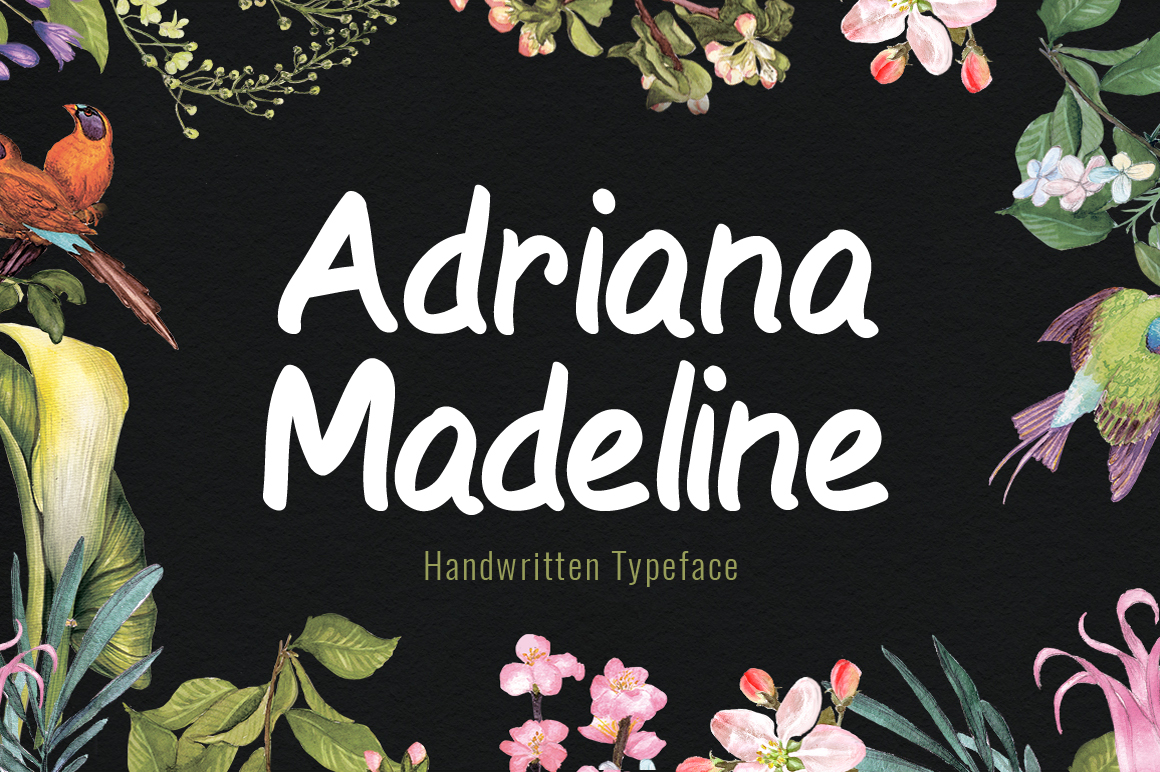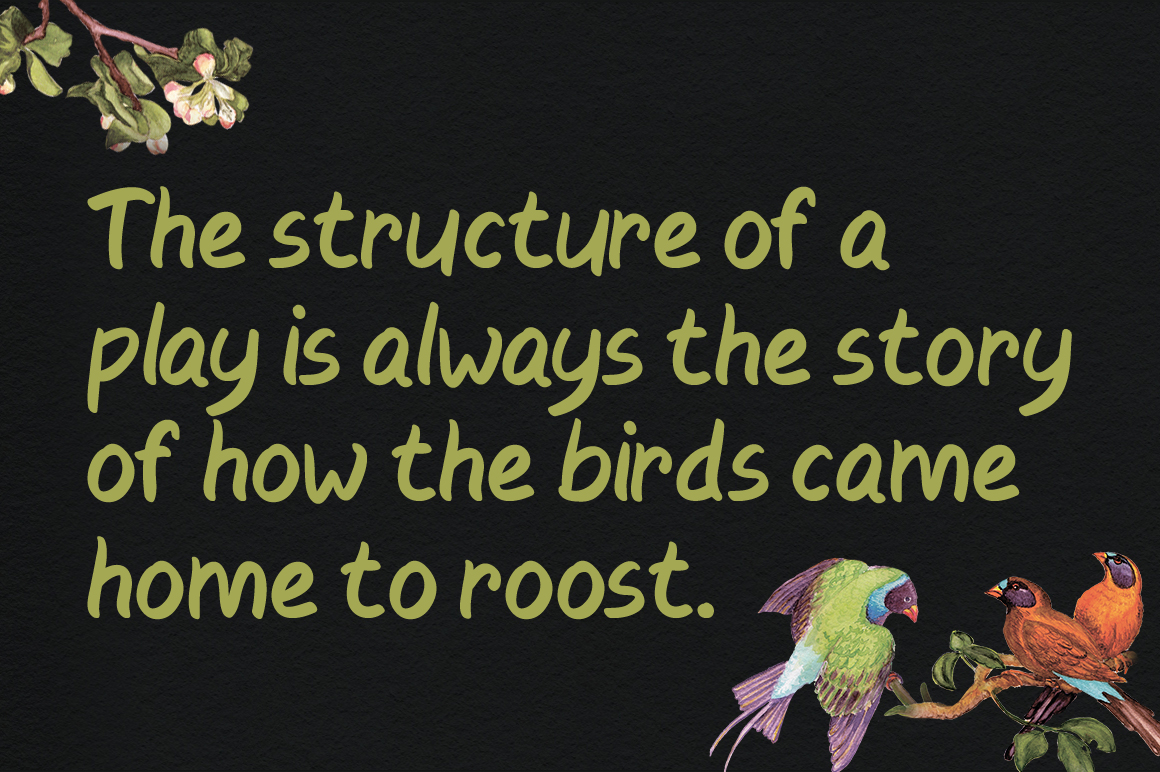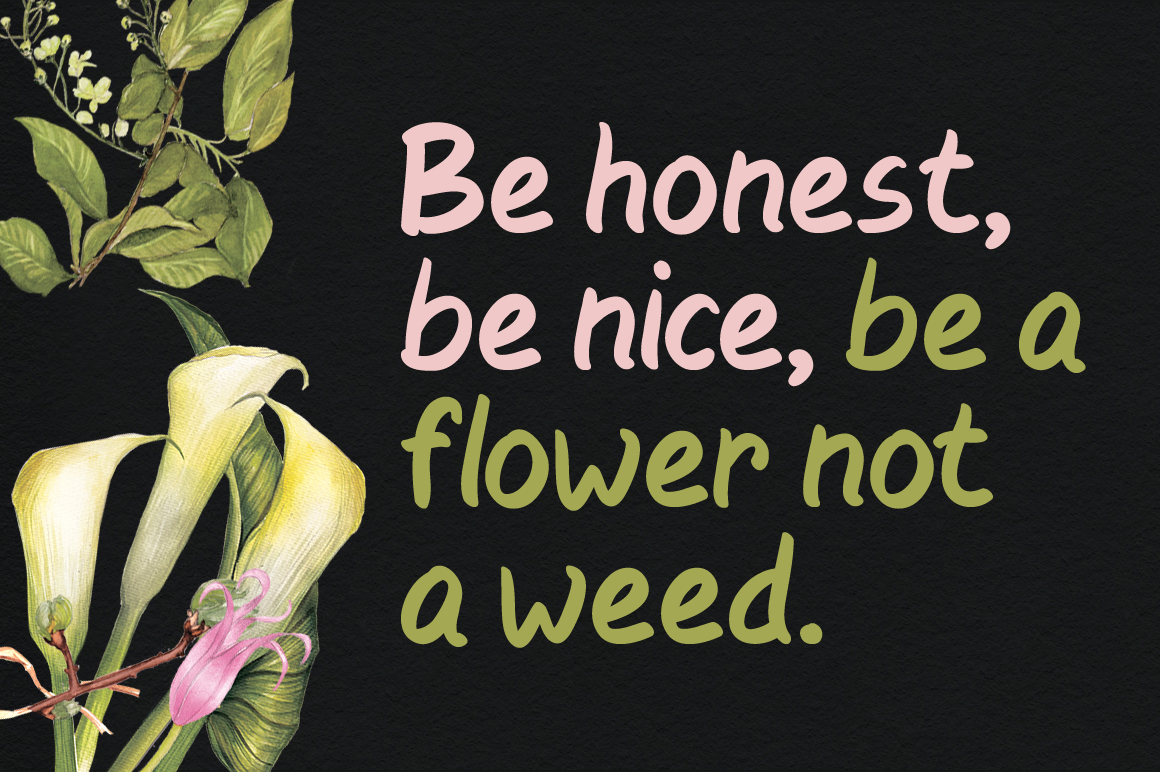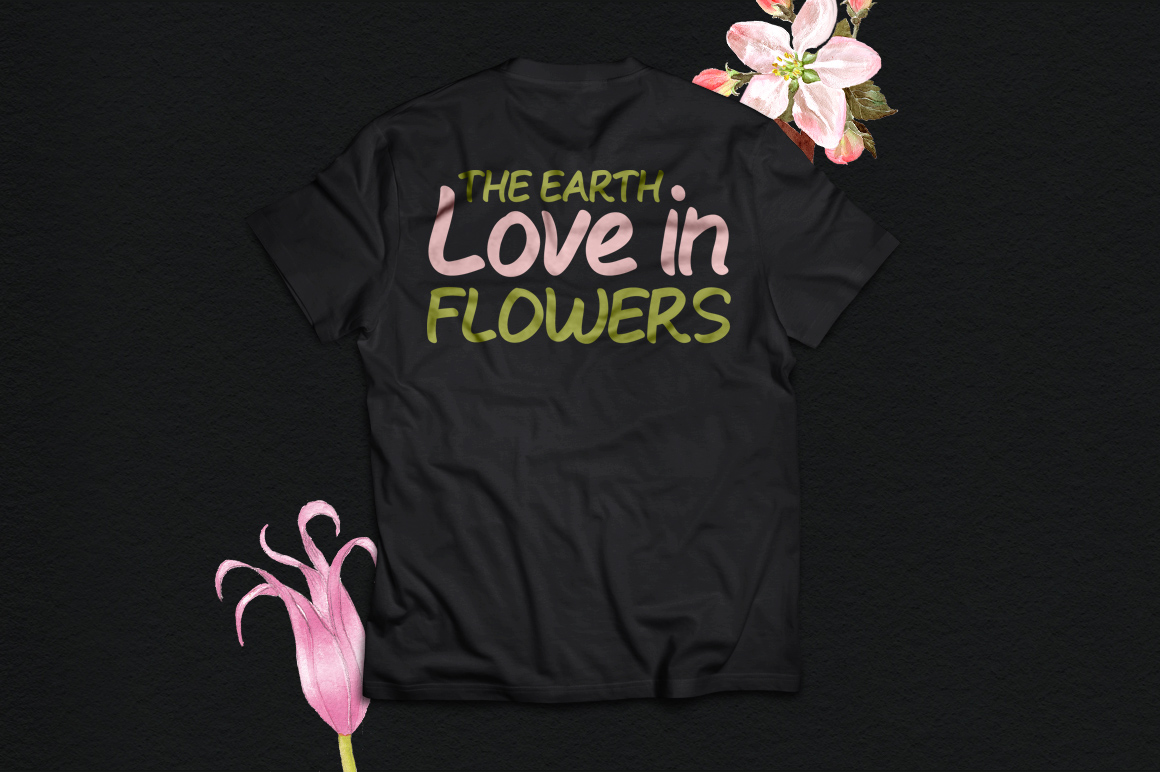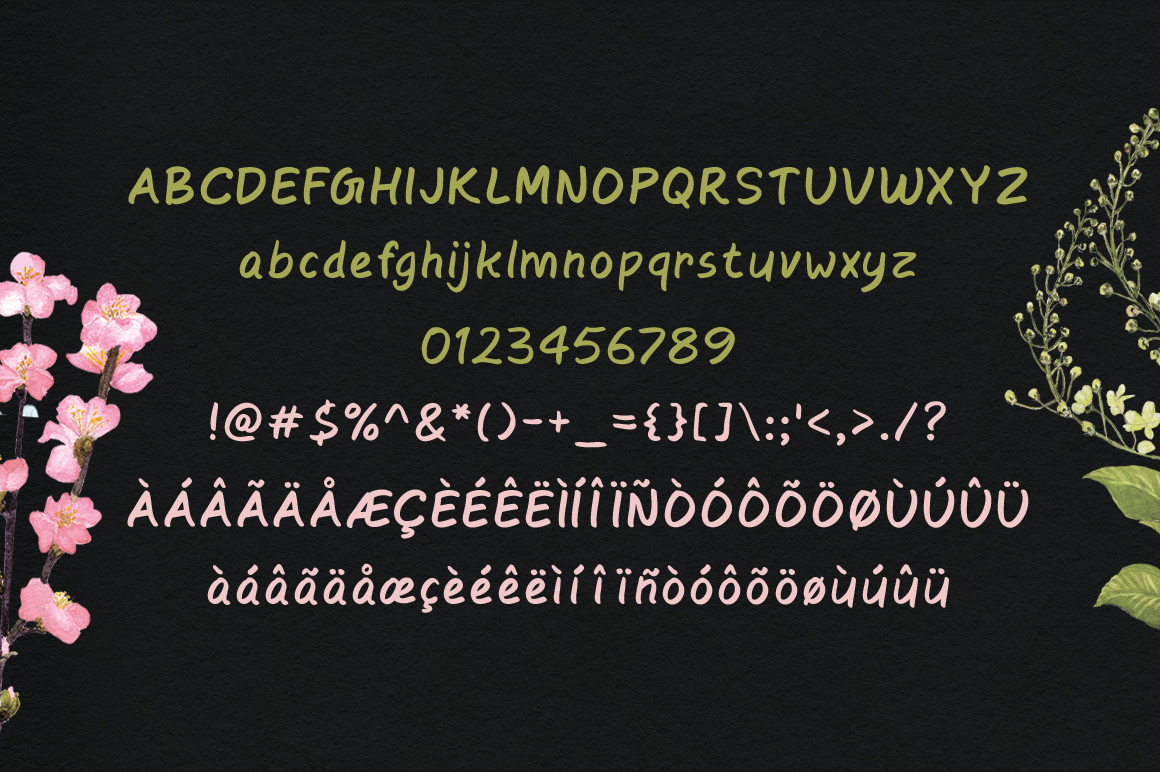
Adriana Madeline Font
About Adriana Madeline Font
A playful handwritten font with a smooth exterior, Adriana Madeline is a handcrafted script font that is both friendly and beautiful. Perfect as a display font or for body text, Adriana Madeline is a font that has universal appeal.